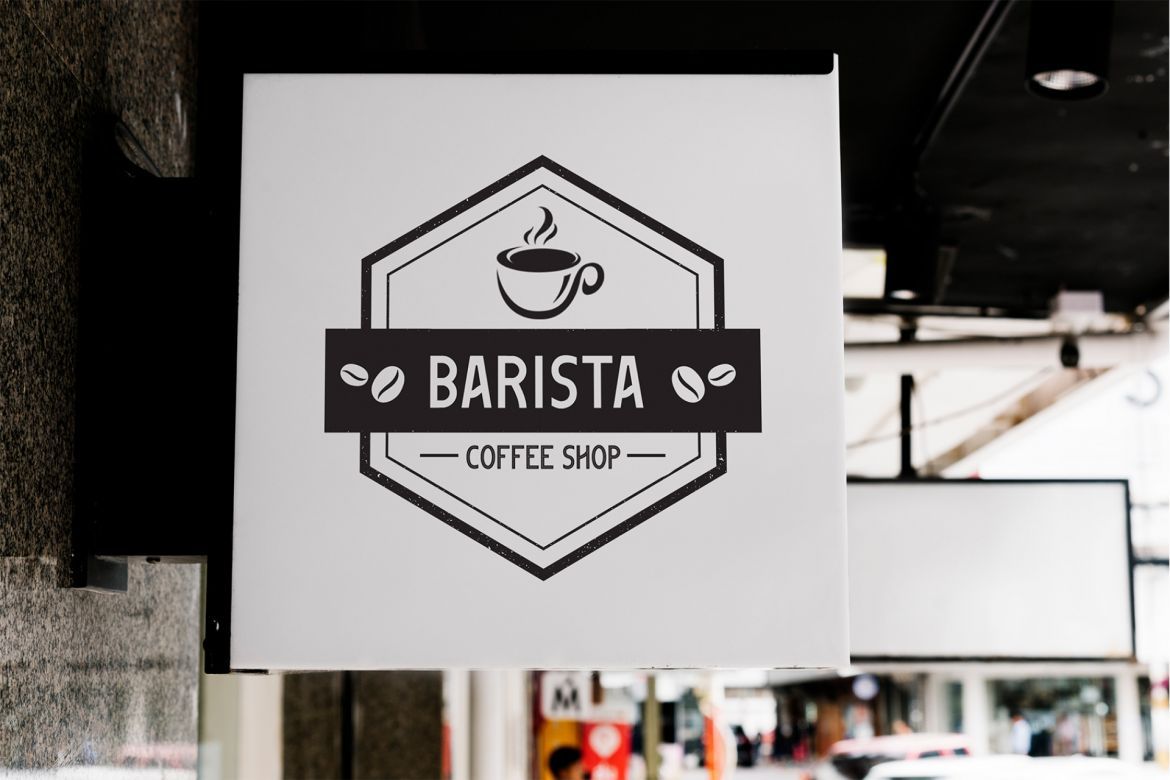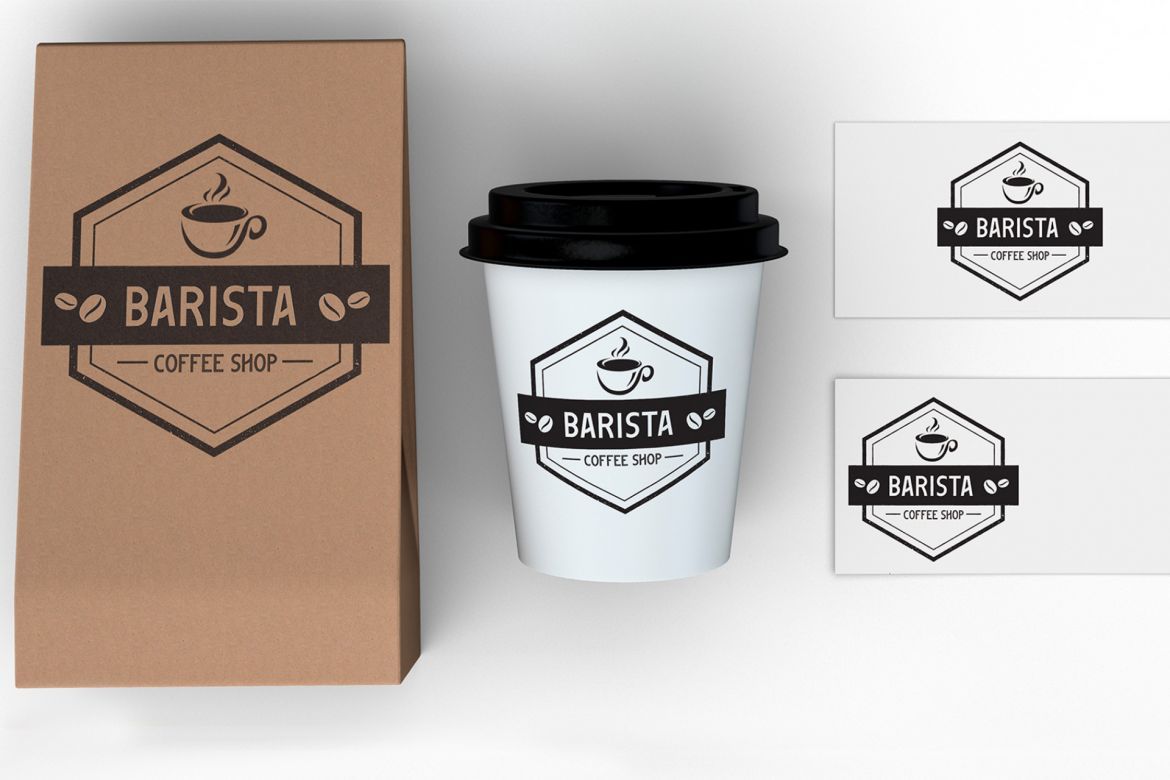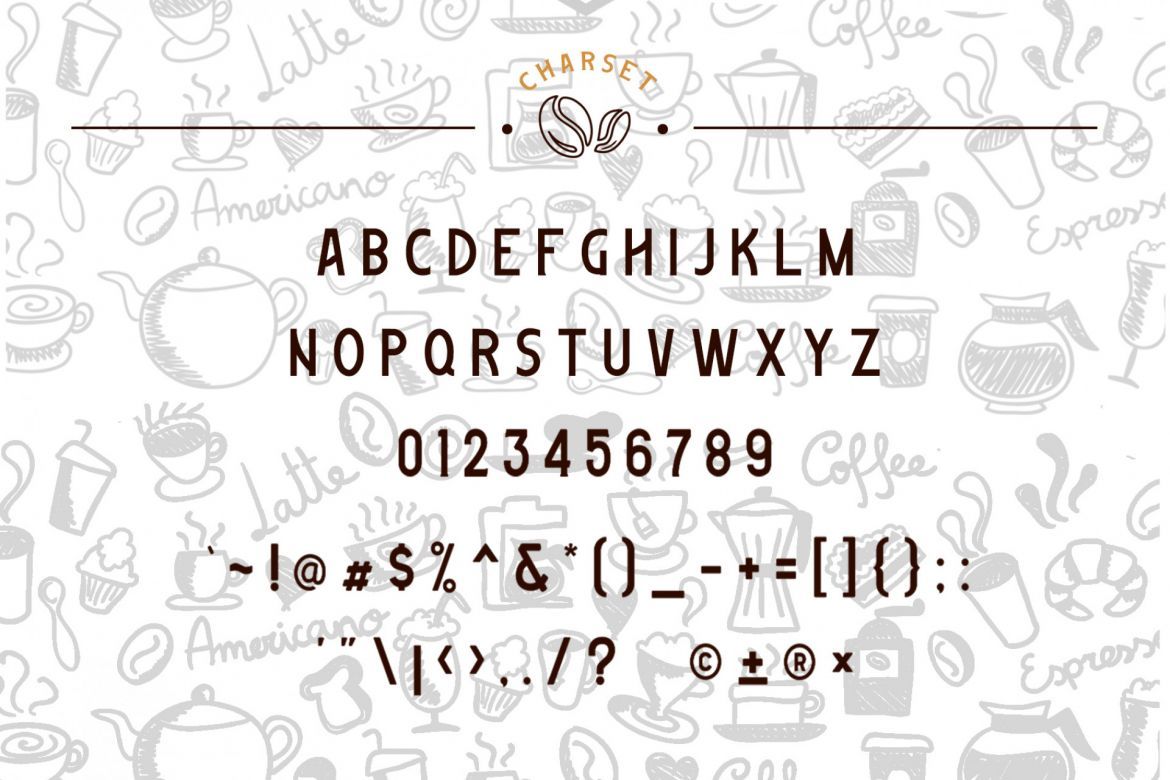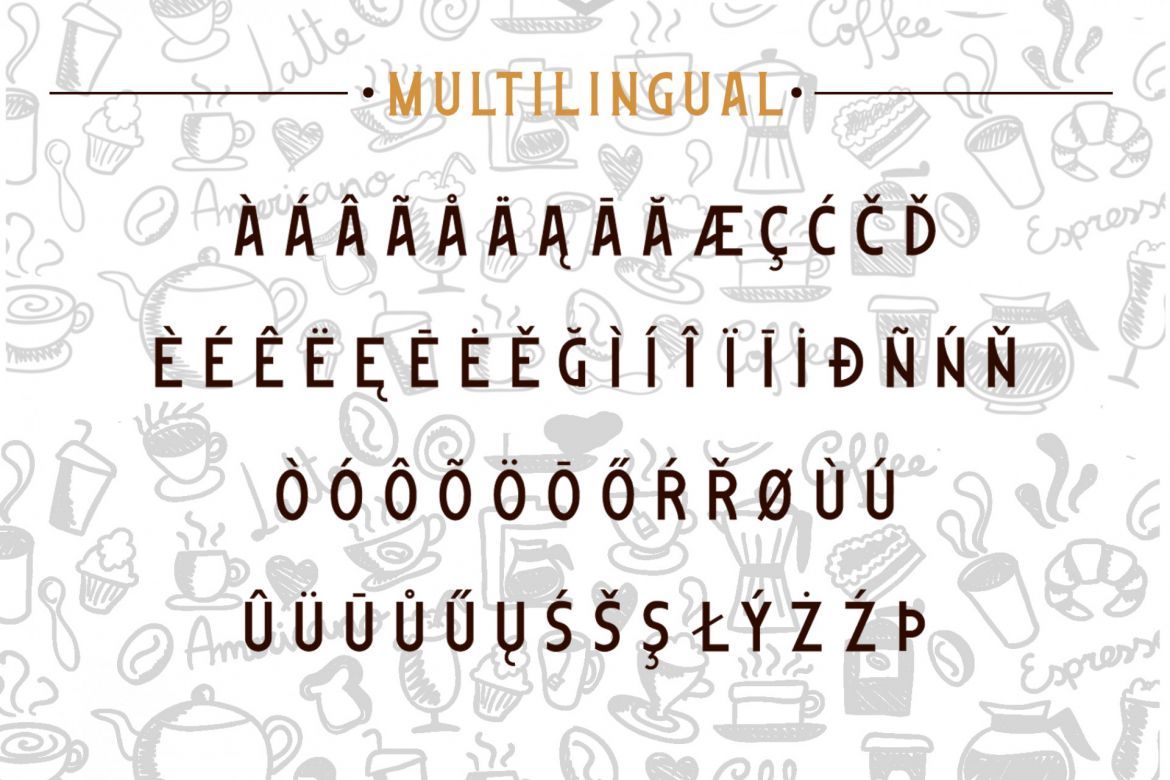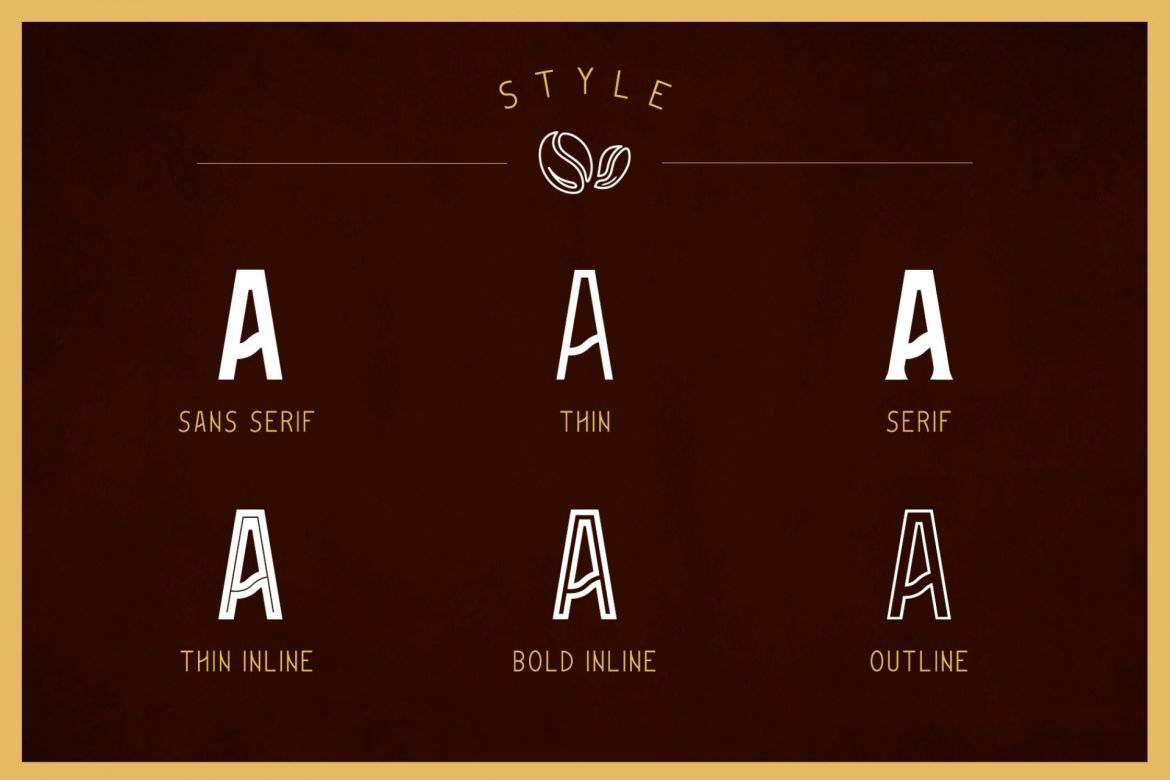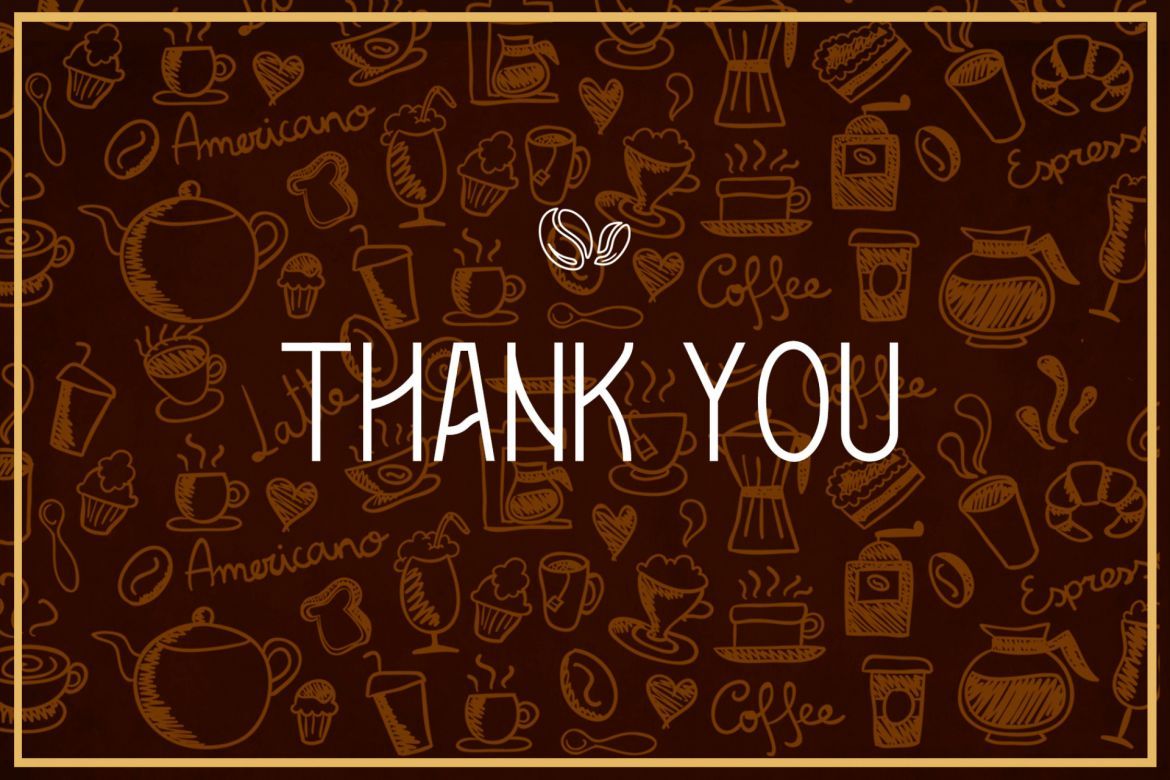
Machiatto 6 Font Family
Macchiato Font is a Display Font, this style gives a feel of vintage, classic, old, and handmade. Suitable for any graphic designs such as branding materials, t-shirt, print, business cards, logo, poster, t-shirt, photography, quotes, coffe shop.etc
With 6 style Font
• 6 font family